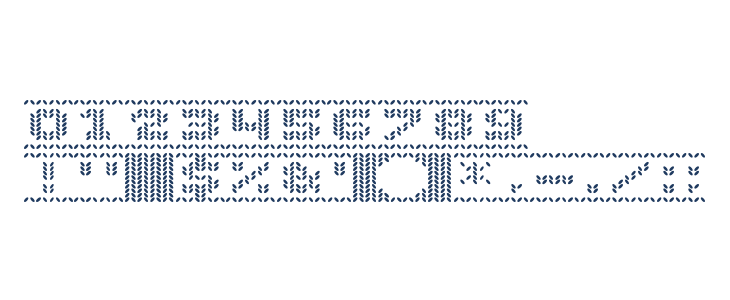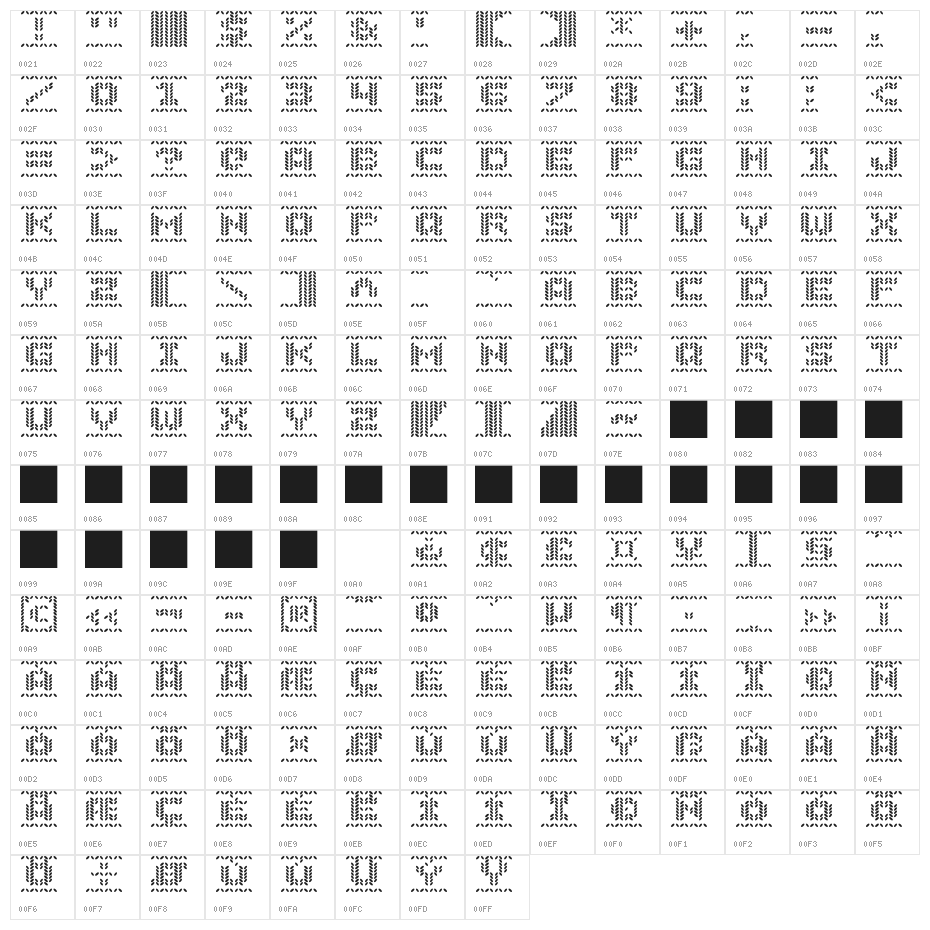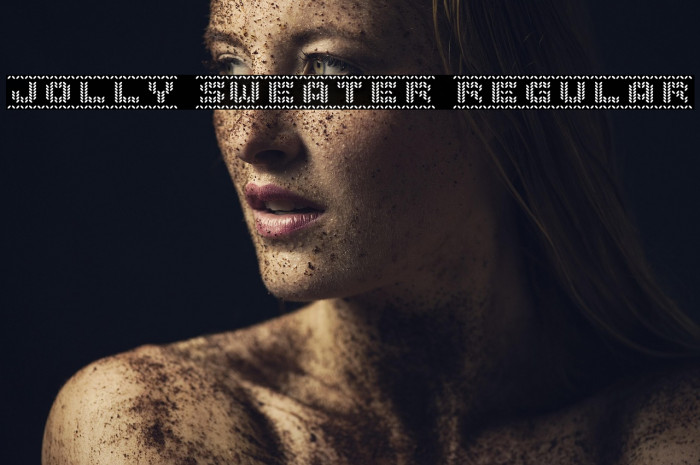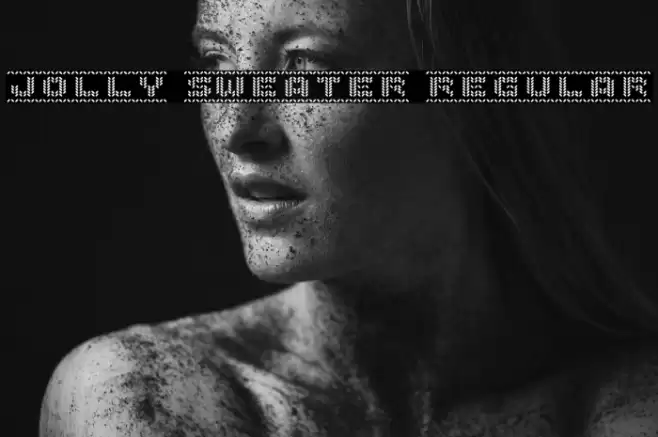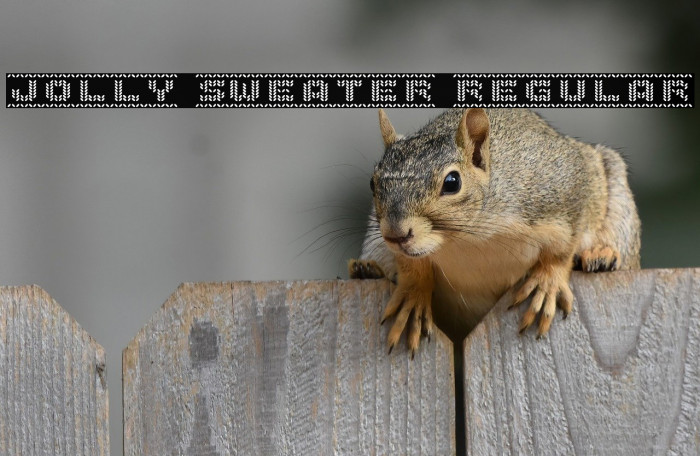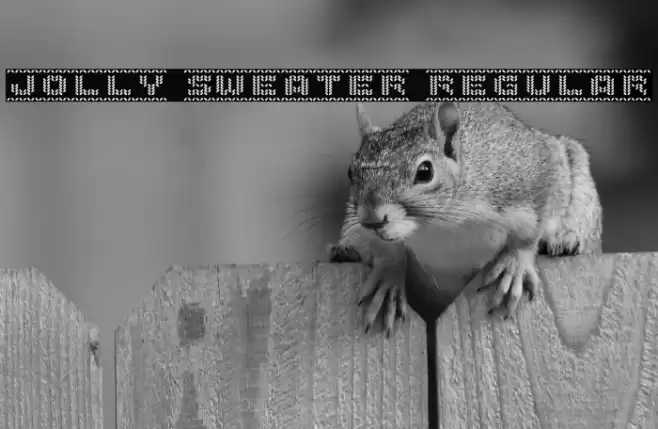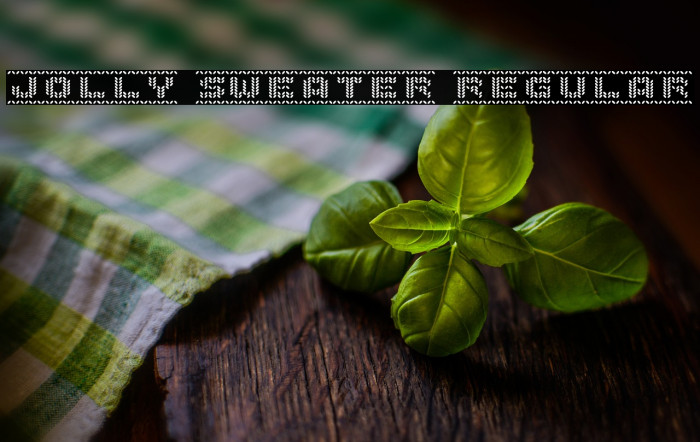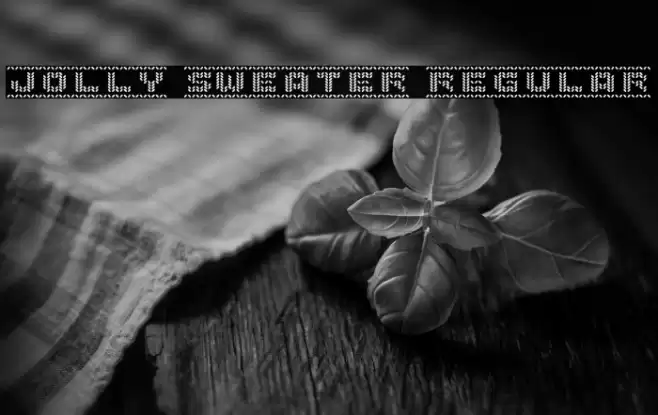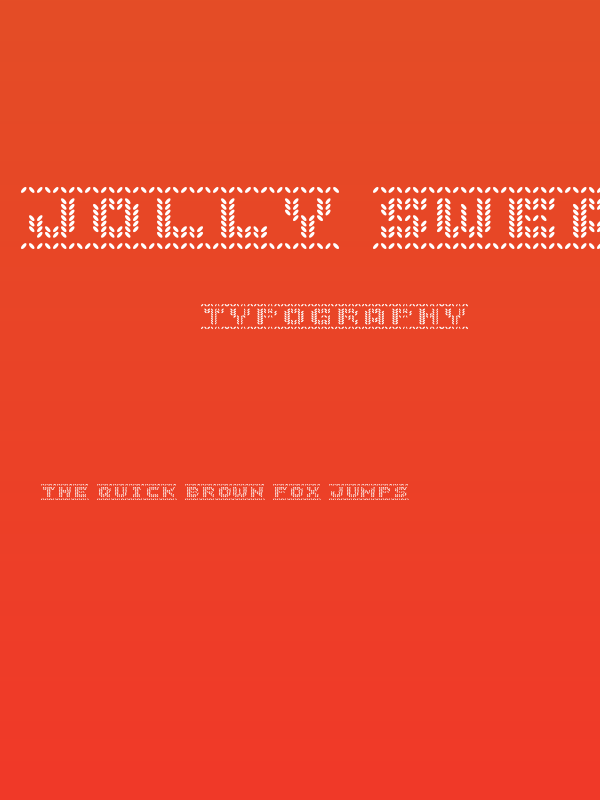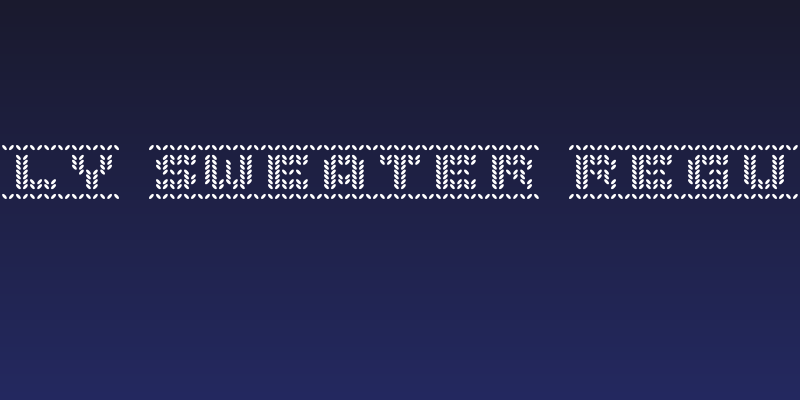
Jolly Sweater Regular Font
Jolly Sweater Regular Description
This font features a unique, decorative style that mimics the appearance of knitted patterns, reminiscent of cozy sweaters. Each character is constructed with a series of diagonal lines, creating a textured and intricate look. The uppercase and lowercase letters maintain a consistent design, while the numerals and special characters follow the same knitted theme. The overall appearance is playful and festive, making it ideal for holiday-themed projects or any design that aims to evoke warmth and comfort.
| Proposed Projects | Ideal for holiday cards, festive invitations, winter-themed posters, and cozy branding materials. |